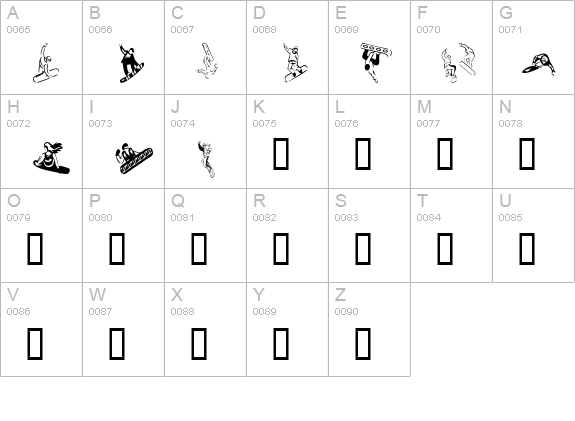
KR Snowboard Font Details
KR Snowboard is a dynamic and energetic font that captures the thrill and excitement of snowboarding down a mountain slope. With its bold and stylized letterforms, this font exudes a sense of speed and adventure, making it perfect for sports-related designs, winter-themed projects, and anything that needs a touch of action-packed fun. What sets KR Snowboard apart is not just its striking appearance, but also the fact that it is available for free download at FontsMarket.com. This means you can easily add this eye-catching font to your design arsenal without breaking the bank. So whether you're creating posters for a snowboarding event, designing a winter sports website, or adding a playful touch to your project, KR Snowboard is the perfect choice to bring your ideas to life.